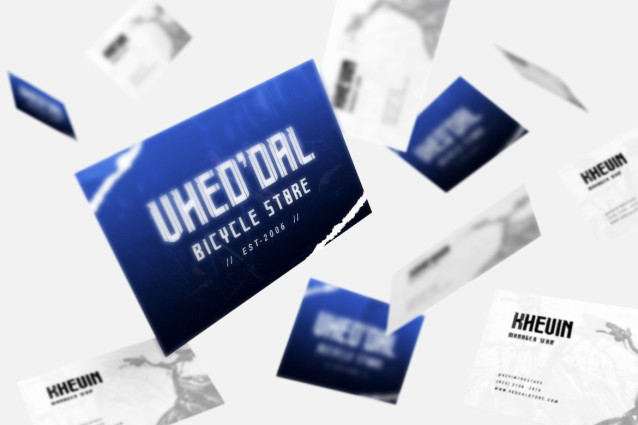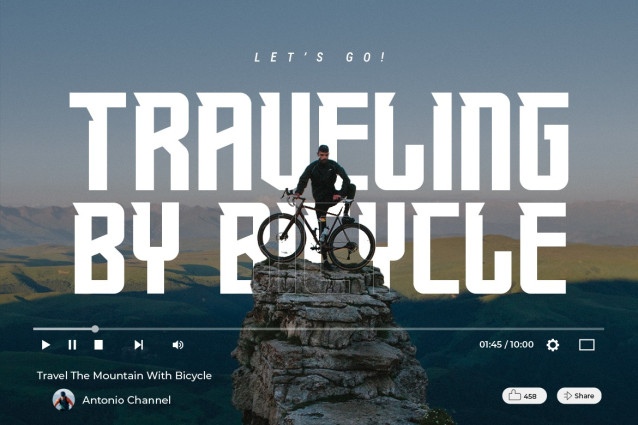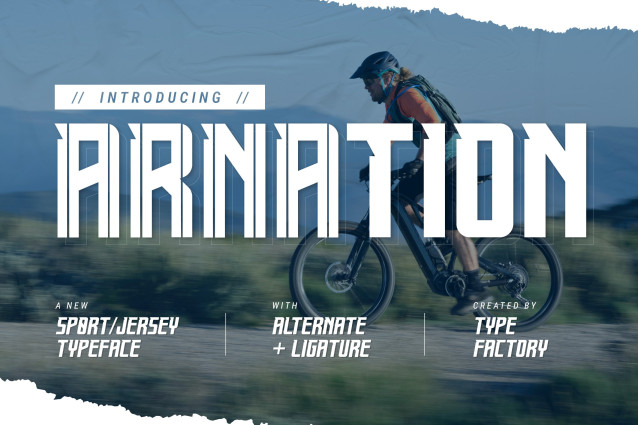
Arnation Font
Arnation Font is a bold and energetic sport jersey typeface designed to bring dynamic impact and team spirit to your projects. With its strong geometric shapes, sharp angles, and athletic proportions, Arnation is perfect for sports branding, jersey numbers, team logos, event posters, and athletic apparel. Its confident presence and clean lines make it easy to read from a distance, while still conveying power and motion. Whether you’re designing for a sports team or creating bold merchandise, Arnation brings the game-day vibe to your typography.